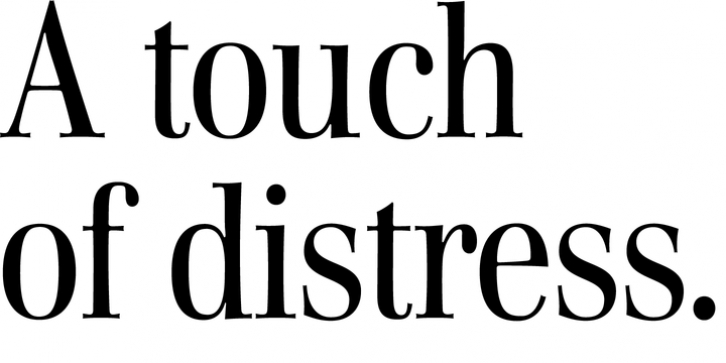
Walburn was designed by Nick Shinn and published by Shinntype. Walburn contains 13 styles and family package options.
Condensed "modern" family based on the early 19th Century Walbaum typeface. A variety of treatments for use at sizes ranging from text to large display, where the micro-detailing comes into full effect.